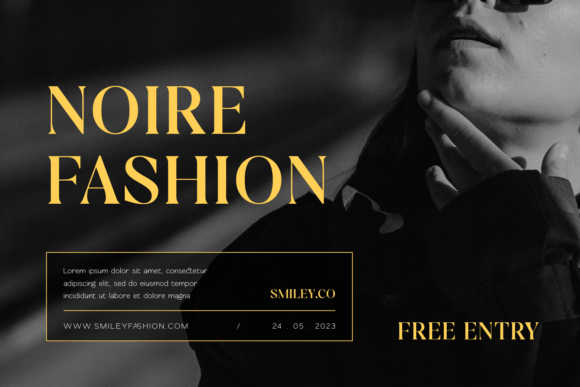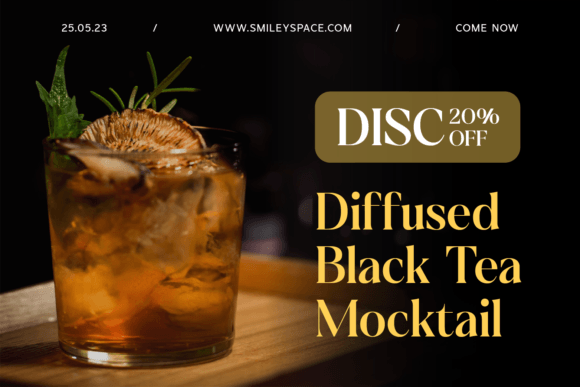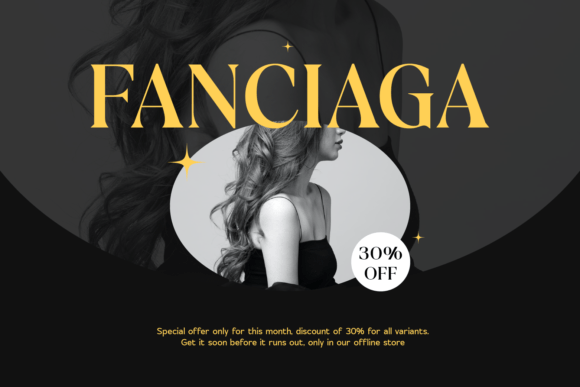
Introduction to Goldwine Font
Imagine you’re brainstorming ideas for a new logo, and suddenly, the perfect font pops into your mind – elegant, sophisticated, and instantly recognizable. For many designers, this is the moment when creativity meets inspiration, and the right font can make all the difference. That’s where the Goldwine Font comes in – a charming serif font that’s sure to elevate your design projects to the next level.
As a valuable resource for designers, the Goldwine Font offers a high-quality design solution that’s perfect for a wide range of creative projects. Whether you’re working on a modern advertising design, a holiday-themed card, or a fantasy novel cover, this font is sure to add a touch of sophistication and style. With its transparent background and free download option, it’s an easy addition to your design resource library.
With its fashionable touch and versatile design, the Goldwine Font is an essential tool for any designer looking to add a little extra flair to their work.
Key Features of Goldwine Font
- Unique, elegant design perfect for creative projects and high-end branding
- Transparent background, allowing for easy customization and layering in design projects
- Perfect for designers working on luxury branding, high-end packaging, and sophisticated marketing materials
Honest Review: Goldwine Font
I recently had the opportunity to work with the Goldwine Font, and I’m excited to share my honest review with you.
What works well: ✨ The Goldwine Font is a high-quality design resource that is perfect for creative projects that require a touch of elegance and sophistication. The font is available for free download, which is a huge bonus for designers on a budget. I was impressed by the transparent background, which made it easy to integrate into my design.
What doesn’t work well: ⚠️ While the Goldwine Font is a great resource, I did find that it can be a bit too ornate for some designs. I had to use it in moderation to avoid overwhelming the rest of the layout.
- Not suitable for minimalist designs
- May be too elaborate for simple text-based designs
Overall, I’m really impressed with the Goldwine Font. It’s a high-quality design resource that is perfect for creative projects that require a touch of elegance and sophistication. If you’re looking for a free download that can add some sophistication to your design, the Goldwine Font is definitely worth checking out.
For the best results, use the Goldwine Font in conjunction with high-quality images and a clear design concept. Common use cases include designing invitations, business cards, and social media graphics.
Alternatives to Goldwine Font
Aurum Script
Aurum Script is a elegant, high-quality font suitable for creative projects that require a touch of sophistication. It’s perfect for wedding invitations, luxury branding, and other high-end designs. When to use: formal events, luxury products, and upscale branding. It compares to Goldwine Font in terms of its luxurious feel, but with a more refined and classic look.
Copperplate Script
Copperplate Script is a beautiful, cursive font that’s ideal for adding a personal touch to your designs. It’s great for invitations, stationery, and other creative projects that require a handwritten feel. When to use: personal invitations, stationery, and handwritten-style designs. It compares to Goldwine Font in terms of its elegant feel, but with a more vintage and traditional look.
What is the recommended font size for the Goldwine Font?
The recommended font size for the Goldwine Font varies depending on the specific design project. However, as a general rule, it’s recommended to use the font at a size between 12 and 24 points for optimal readability. This will help ensure that the font looks its best in a range of creative projects, from business cards to signage.